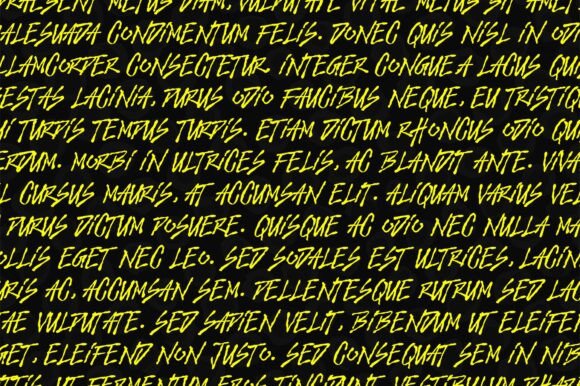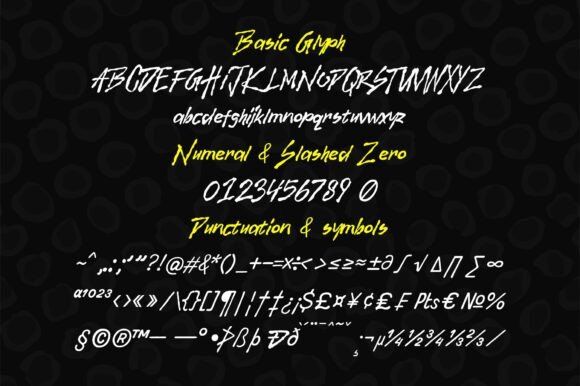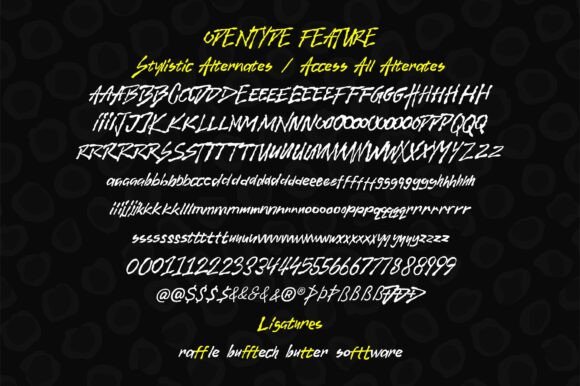
Introduction to Live Font
Have you ever stared at a blank page, trying to bring a creative project to life, only to find that the right font is the missing piece? It’s a feeling we’ve all been there – the spark of an idea, the blank canvas, and the elusive font that will bring it all together. That’s where Live Font comes in – a beautifully crafted, handmade display script font that’s waiting to elevate your design.
With Live Font, you’ll have access to a wide range of special stylistic alternates for every character. Simply use the ‘access all alternates’ or ‘stylistic alternates’ features, and you’ll be able to pick and choose the perfect alternates for your design. Whether you’re working on a high-quality project or just need a design resource for a quick job, Live Font is here to help.
Key Features of Live Font
- High-Quality Design: Live Font offers a wide range of high-quality fonts perfect for any creative project, including posters, flyers, and brochures.
Honest Review: Live Font
Here’s what works well for me: ✨ Live Font offers a wide range of fonts in various styles, from modern to vintage, making it easy to find the perfect match for my design. The fonts are available for free download, which is a major plus. Additionally, the quality of the fonts is top-notch, with clear and crisp typography.
Tips for Getting the Most Out of Live Font
Live Font is perfect for creative projects that require high-quality, custom fonts. You can use it to create engaging social media graphics, eye-catching posters, or even personalized invitations.